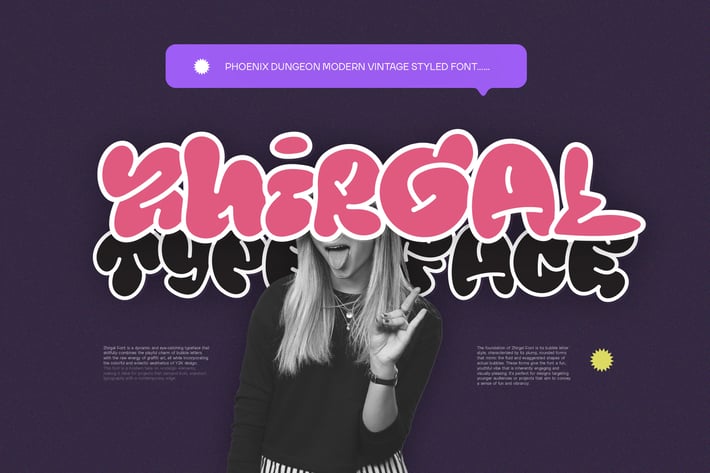
Zhirgal Typeface
Zhirgal Font is a dynamic and eye-catching typeface that skillfully combines the playful charm of bubble letters with the raw energy of graffiti art, all while incorporating the colorful and eclectic aesthetics of Y2K design.
This font is a modern take on nostalgic elements, making it ideal for projects that demand bold, standout typography with a contemporary edge.